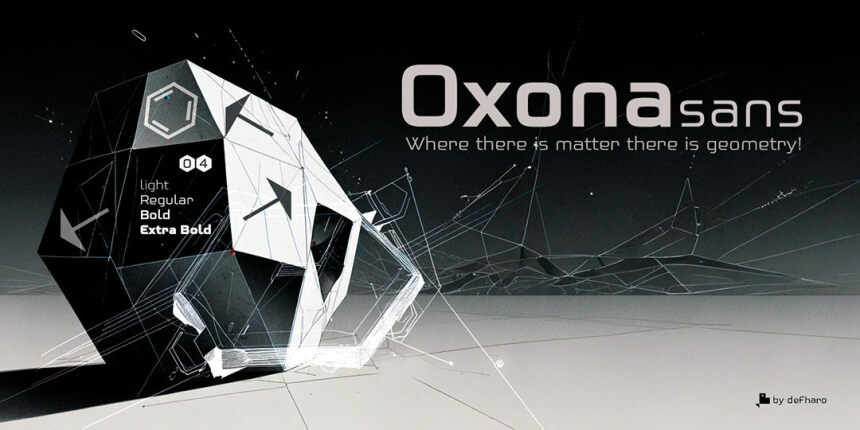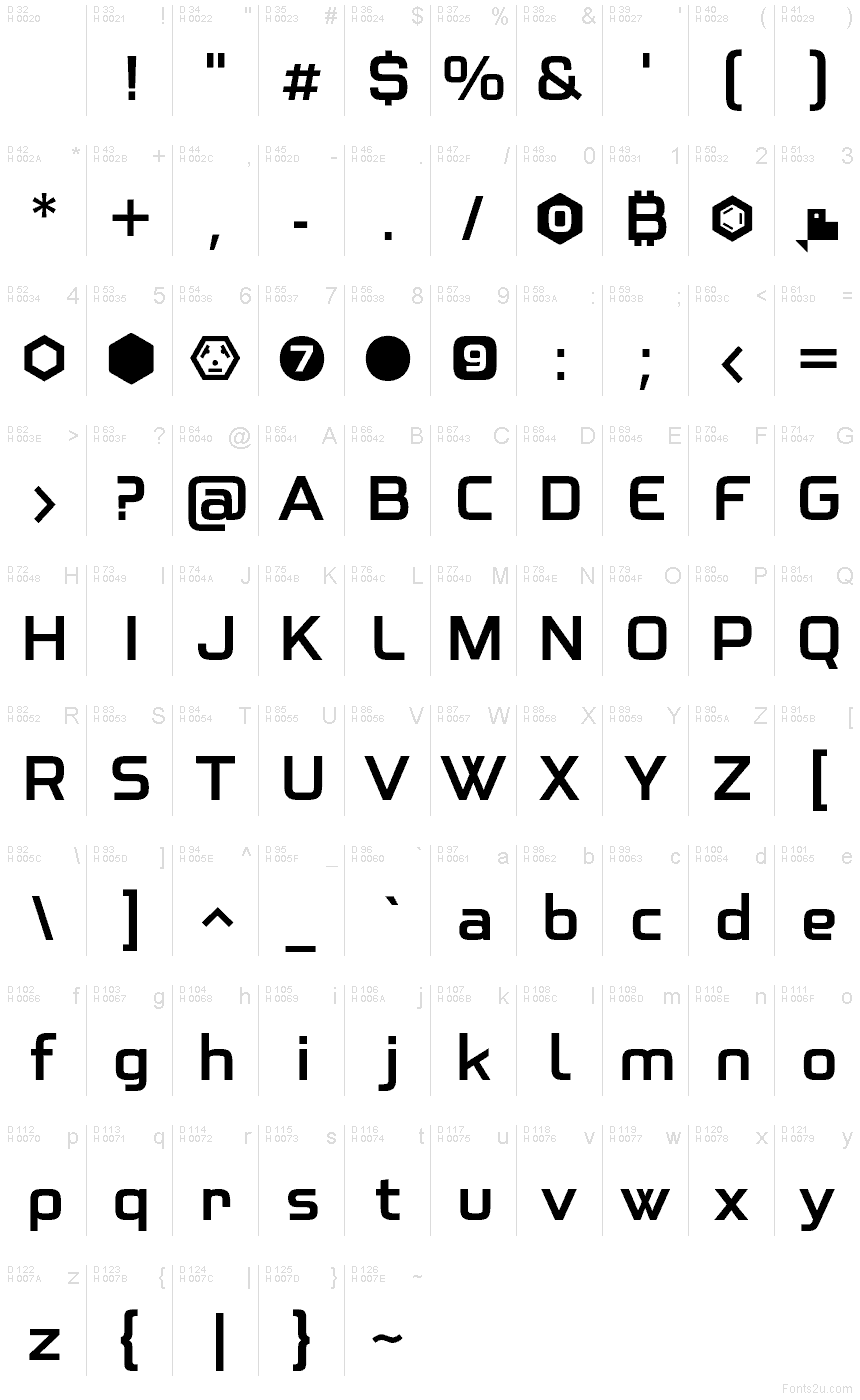
Oxona Bold
Oxona font by Fernando Haro stands out as a heavily geometric sans-serif. This stark and angular free font has almost no rounded shapes with each angle meeting at 90 degrees. Each character is lined in perfect balance since the same x-height was used for every sign which makes this an extremely disciplined writing style that’s reminiscent of LED letters.
Use Oxona in projects that require minimalism, modernism, and professionalism. Options include signages, book covers, magazine covers, posters, banners (both physical and digital), stand-up banners (roll-ups), brochures, flyers, email newsletters as well as website texts above the fold or even below it.
Oxona is a futuristic sans serif with 4 weights, meticulously calculated square proportions that aims to redefine readability and visual impact.
Every stroke, every curve and every angle has been polished to achieve a perfect balance between absolute clarity and aesthetic boldness due to its cleanliness, modernity and functionality, the geometric structure and its subtle optical adjustments that generate great harmony and make it a unique typeface, as rational as it is expressive.